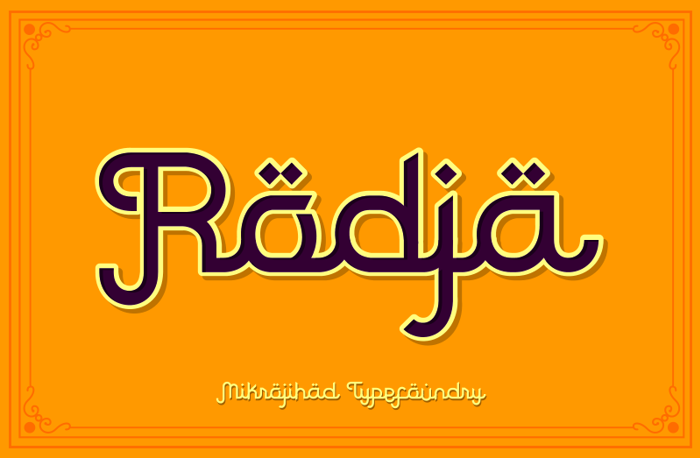
Rodja Font
Thank you. That's a very thorough job and a big family for a freeware font. Nice graphics too. One of my favorite font genres is "fauxlang" fonts: Latin fonts that imitate other alphabets.